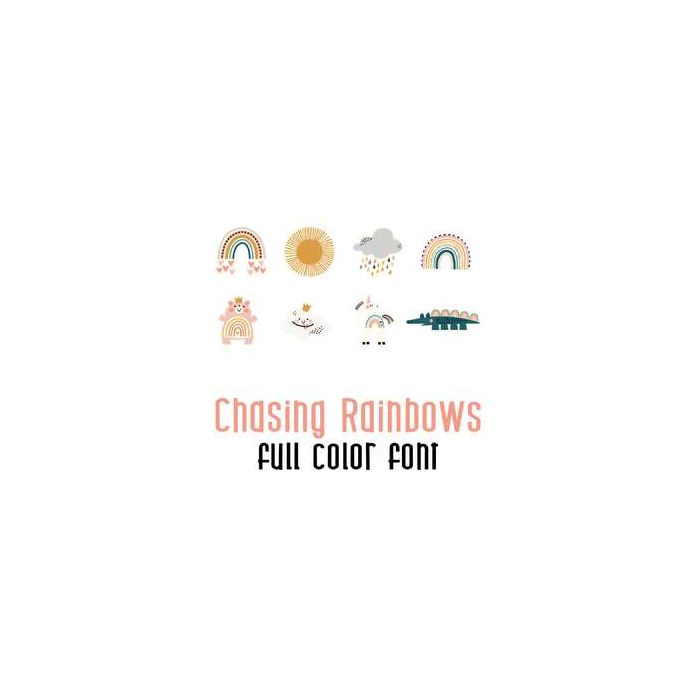
This adorable full color doodlebat font features hip trendy rainbows and rainbow animals. Perfect for cards, crafts, gifts, decor, scrap book pages, planner stickers and more!